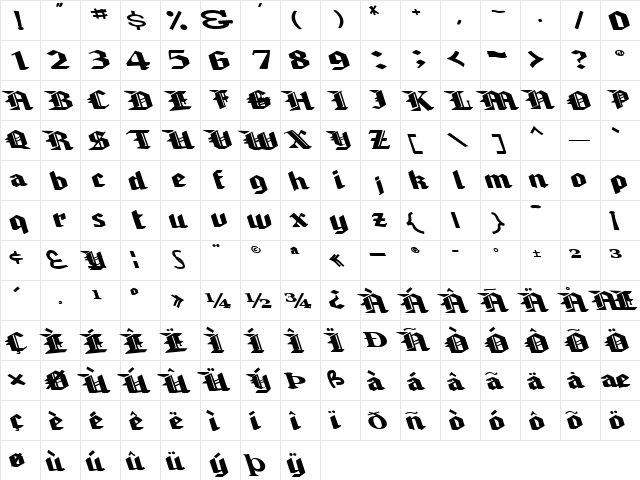
BrawnyArmsLight99 Bold Font Preview
BrawnyArmsLight99 Bold
Design Context for BrawnyArmsLight99 Typeface
BrawnyArmsLight99 is a composed and adaptable typeface that performs quietly and consistently across a wide range of design contexts. Its bold stroke weight gives it real presence on the page.